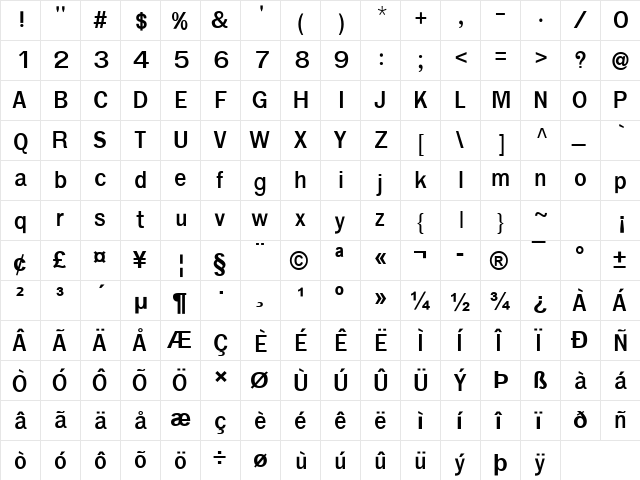
Garuda Bold
Design Context for Garuda Typeface
Garuda takes a measured approach to typography — its balanced proportions and neutral character make it a reliable workhorse for both digital and print work. Its bold stroke weight gives it real presence on the page.